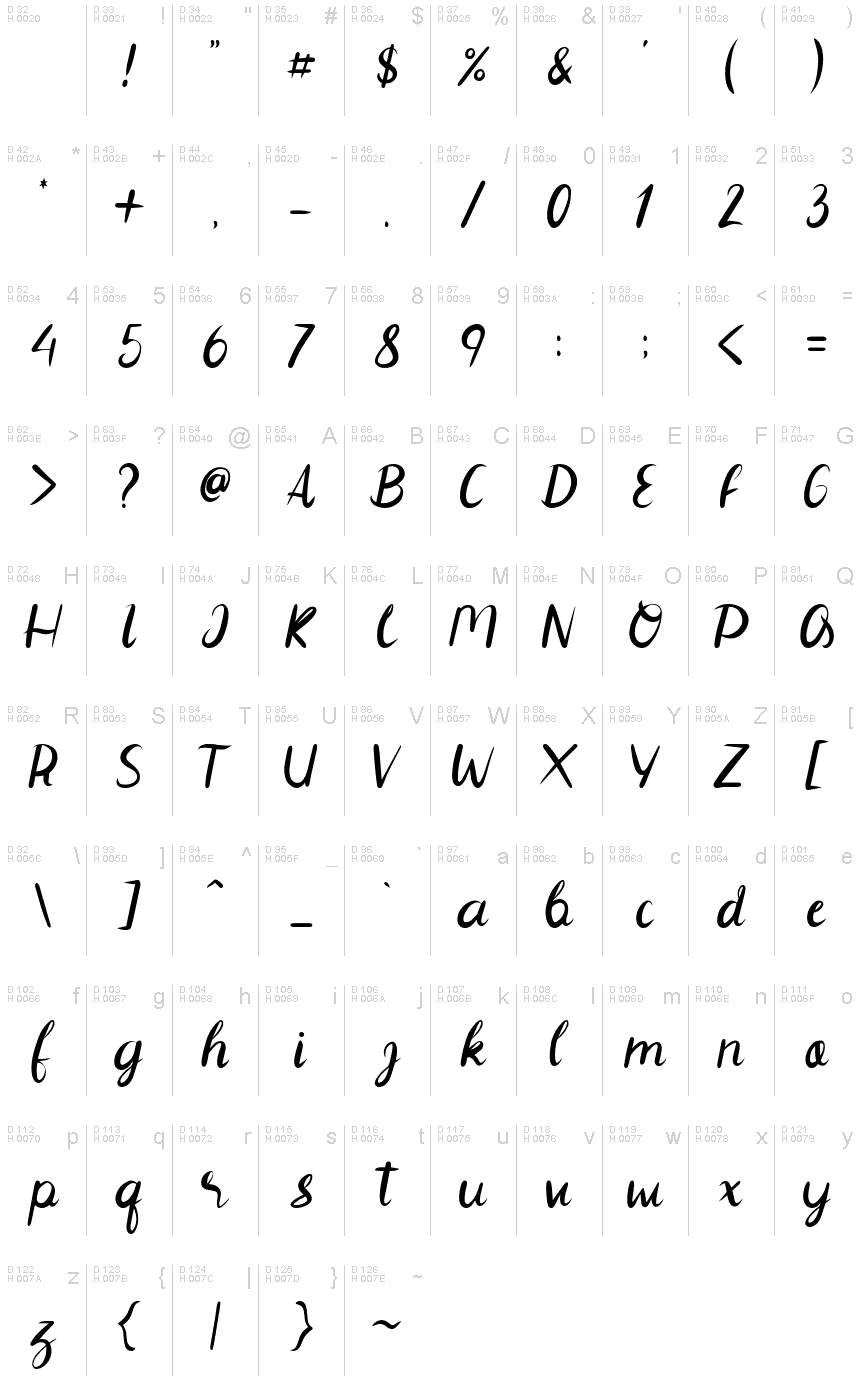
Elegan font
The Elegan font, designed by i wayana wisna wijaya, is a beautiful handwritten typeface with light weight and narrow width. It is perfect for projects that require an elegant and personal touch such as wedding invitations, greeting cards, logos and stationery designs.